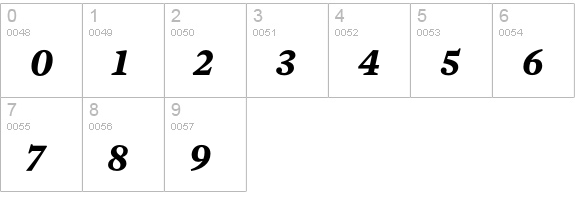
Mercury Text G2 Bold Italic Font Details
Mercury Text G2 Bold Italic is a strong, high-contrast, italic variant in the Mercury typeface family \xE2\x80\x94 well suited to headlines, attention-grabbing titles, and strong calls-to-action.
Mercury Text G2 Bold Italic is a striking and dynamic font that exudes confidence and sophistication. Its bold and italic styling creates a strong visual impact, making it perfect for headlines, titles, and emphasis in design projects. The sleek and modern design of this font adds a touch of elegance to any creative work. What sets Mercury Text G2 Bold Italic apart is that it is not only visually appealing but also highly functional. Its readability and clarity make it an excellent choice for both print and digital media. Whether you are designing a magazine layout, creating a website, or working on a branding project, this font will make your text stand out in a stylish and professional manner. Best of all, Mercury Text G2 Bold Italic is available for free download at FontsMarket.com. This means that you can easily access this high-quality font without any cost, making it a valuable addition to your font collection. Don't miss out on the opportunity to enhance your design projects with the bold and elegant Mercury Text G2 Bold Italic font!